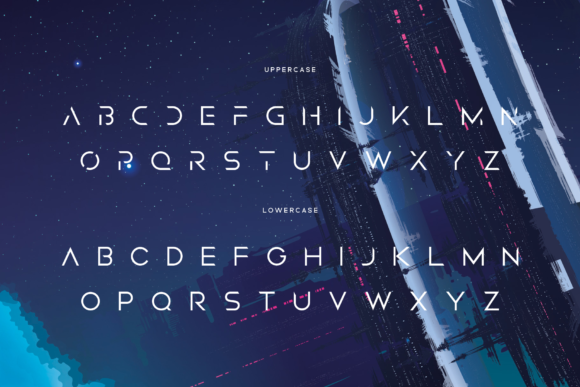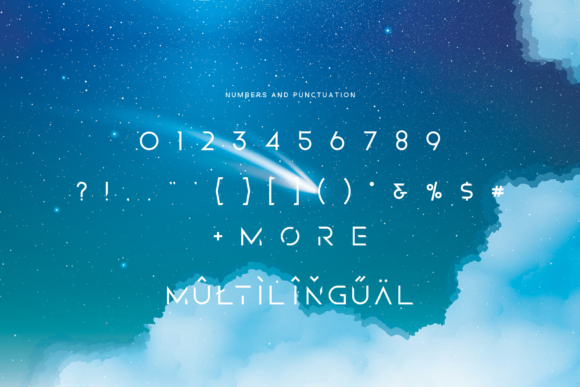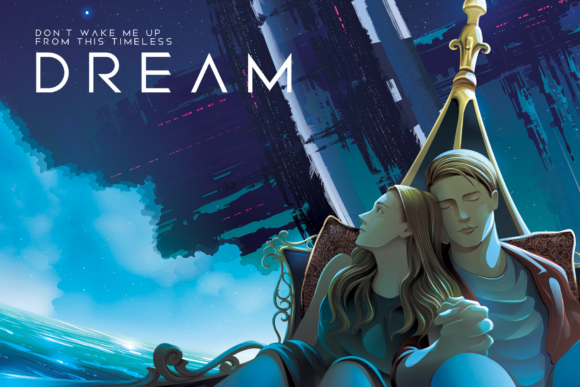
Introduction to Inno Font
Have you ever stumbled upon the perfect font that elevates your creative project from ordinary to extraordinary? For designers and creatives, finding that one special font can be a game-changer. It’s the moment when the words on the page come alive, and the message resonates with your audience. This is exactly what the Inno Font promises to deliver – a futuristic sans serif font that exudes elegance and sophistication.
Whether you’re crafting a beautiful logo, designing a stunning social media post, or creating a custom invitation, Inno Font is a valuable design resource that will help you bring your vision to life. With its sleek lines and modern aesthetic, this font is perfect for anyone looking to add a touch of innovation to their creative project. And the best part? You can download the Inno Font for free, making it an accessible high-quality design asset for designers of all levels.
- Includes a range of stylish and modern font styles, ideal for making a statement in creative projects.
Honest Review: Inno Font
I recently had the opportunity to try out the Inno Font, and I must say, it’s a solid addition to any designer’s toolkit. As a design resource, it’s perfect for creative projects that require a clean and modern look.
What works well: ✨ The font is highly customizable, making it easy to adjust to fit your specific needs. The transparent background feature is also a great touch, allowing you to seamlessly integrate it with your designs. The high quality of the font is also noticeable, with crisp and clear lettering that’s perfect for both digital and print projects.
However, there are a few limitations to consider: ⚠️ While the font is highly customizable, it may not be suitable for all design projects, particularly those that require a more bold or playful look. Additionally, the font may not be compatible with all software or platforms.
Overall, I’m impressed with the Inno Font and would recommend it to designers looking for a high-quality, customizable font for their creative projects.
Inno Font is commonly used in creative projects, such as logos, infographics, and social media graphics, thanks to its transparent background and high-quality design.